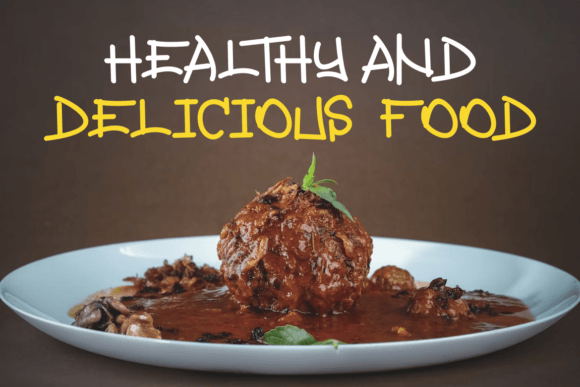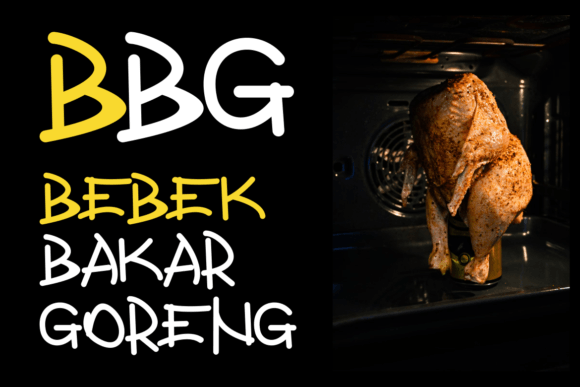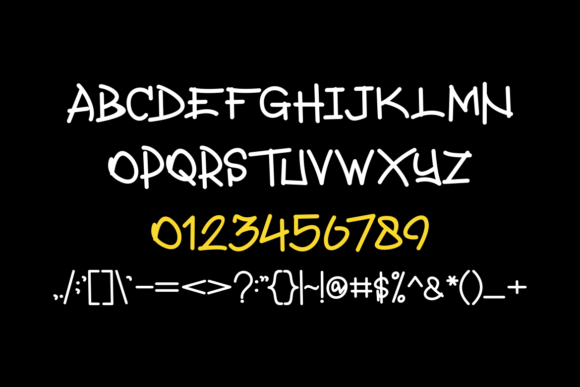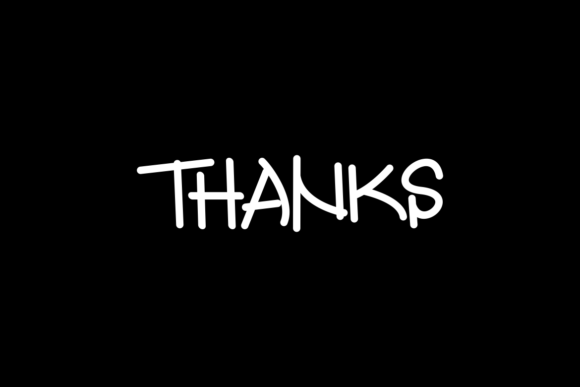
The Perfect Match for Your Creative Masterpiece: Care Bebek Font
Have you ever been in the midst of a brainstorming session, surrounded by sketches and half-baked ideas, only to have a spark of inspiration strike you? That’s exactly what happened to designers who stumbled upon the Care Bebek Font – a game-changing display font that elevates their creative vision to new heights.
Care Bebek Font is a bold and authentic display font designed to make your branding projects stand out. From logos to T-shirt printing, esports to graphic designs, this font is the perfect companion for any creative endeavor. Its versatility and unique character make it an invaluable asset for designers looking to add an extra layer of personality to their work.
With the Care Bebek Font, designers can breathe life into their designs and leave a lasting impression on their audience. Whether you’re a seasoned pro or a budding artist, this font is sure to be a valuable addition to your toolkit.
Care Bebek Font Key Features
- Font Family: Care Bebek Font is a sans-serif font family, designed specifically for use in baby and children-related content.
- Unique Characteristics: The font features rounded edges and soft curves, giving it a friendly and approachable feel, making it perfect for baby and children-related content.
Review of Care Bebek Font
Overall, I think the Care Bebek font is a beautiful addition to any design project. ✨ It has a unique and modern feel that can add a touch of sophistication to any text. The font is highly legible, making it perfect for body text or headings.
- ✨ Unique and modern design aesthetic
- ✨ Highly legible, making it perfect for body text or headings
- ✨ Suitable for a wide range of design projects, from digital to print
⚠️ One of the main limitations of the Care Bebek font is its limited character set. It does not include a wide range of special characters or punctuation marks, which can make it difficult to use in certain situations.
⚠️ Additionally, the font may not be suitable for use in very small sizes, as the lines can become quite thin and difficult to read.
Overall, I would highly recommend the Care Bebek font for any design project where a unique and modern look is desired. While it has some limitations, it is a beautiful font that can add a lot of visual interest to a design.
Getting the Most Out of Care Bebek Font
Here are some tips to get the most out of the Care Bebek font:
– Use it for creative projects, such as children’s books or nursery decor.
– Experiment with different font sizes and colors to create visual interest.
– Pair it with other fonts to create a unique and playful look.
The Care Bebek font is commonly used for:
– Children’s products and packaging.
– Nursery decor and furniture.
– Educational materials and children’s books.
– Branding and marketing materials for children’s companies.
Alternatives to Care Bebek Font